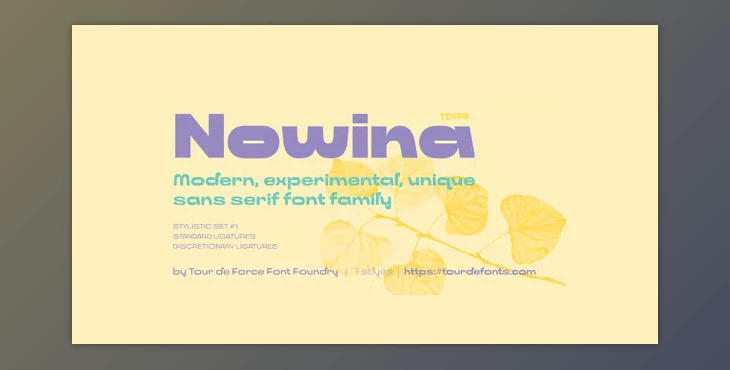
Nowina captures both modern and nostalgic feelings, making it especially fitting for logos, product names, titles, and branding. The typeface family has seven weights, from Light to Black, and supports OpenType features such as Standard and Discretionary Ligatures and a Stylistic Set. Because of its flexibility, it is perfect for posters, packaging, websites and outdoor advertising aimed at designers looking for an outspoken yet elegant type of design.